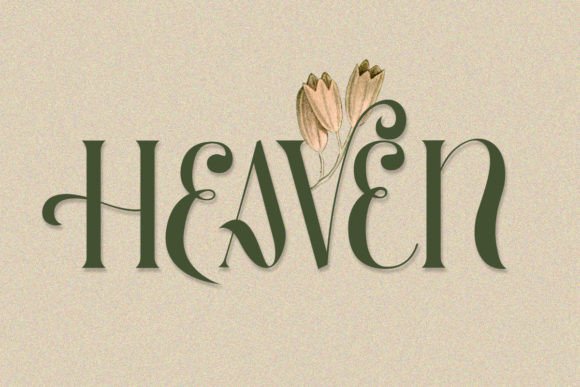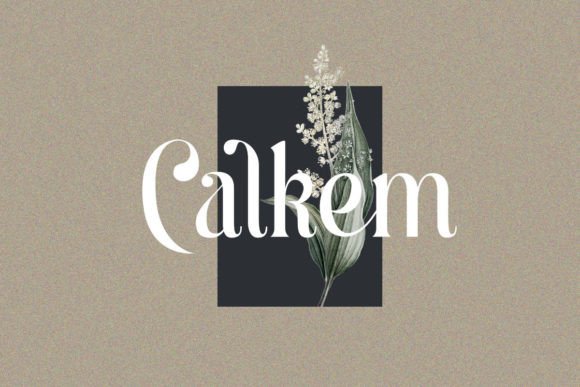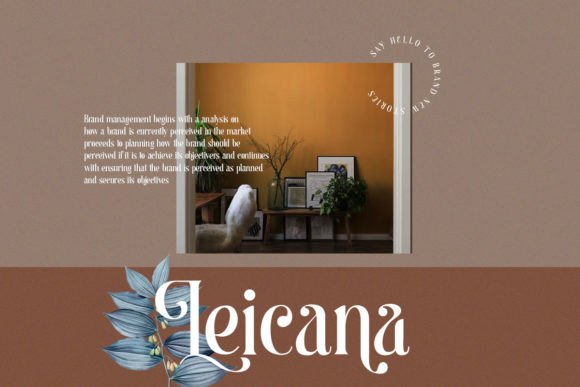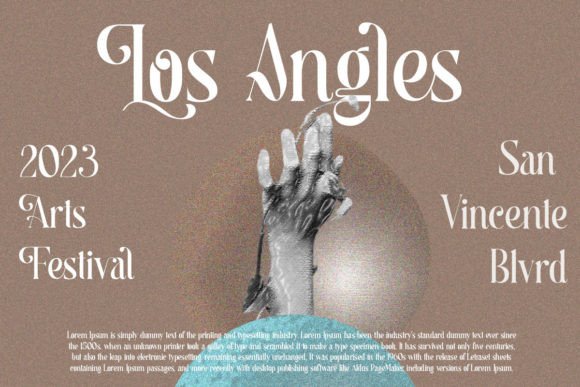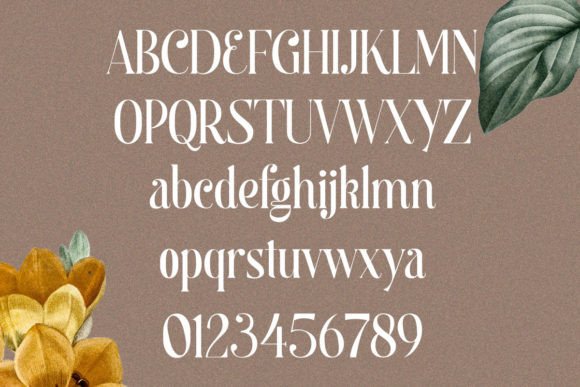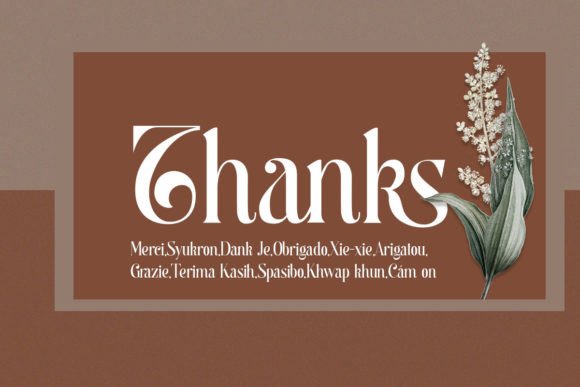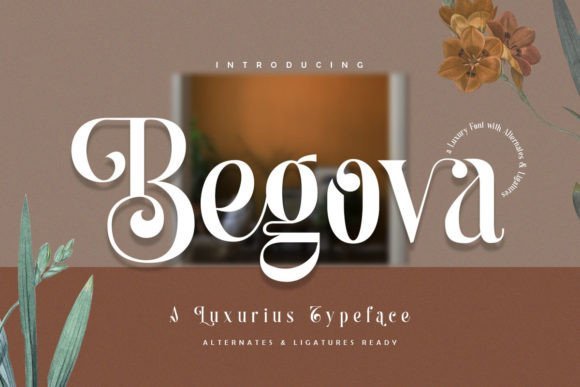
The Perfect Font for Making a Lasting Impression
Have you ever stared at a blank page, struggling to find the perfect font to bring your design to life? We’ve all been there. But what if you could find a font that not only makes a statement but also adds a touch of elegance and sophistication to your work?
| 👤 Author | Lettercorner Studio |
Meet Begova Font, a classic and stylish display serif designed specifically for headings, logos, branding, magazines, product packaging, and invitations. With its rich stylistic alternates and clean lines, Begova Font is the perfect choice for designers looking to add a touch of class to their projects. Whether you’re a seasoned pro or just starting out, Begova Font is a valuable asset to have in your design toolkit.
Begova Font Key Features
- Unique Characteristics: Begova Font features a unique blend of modern and traditional design elements, with a focus on legibility and readability.
Begova Font Review
I recently had the chance to work with Begova Font, and I wanted to share my honest thoughts on this unique typeface. ✨ One thing that stands out is its quirky, hand-drawn feel, which can add a lot of character to designs. The font’s bold, expressive lines and varied letterforms make it perfect for projects that need a bit of personality.
Another great aspect of Begova Font is its versatility. It works well in a range of contexts, from logos and branding materials to editorial and creative projects. ✨ The font’s wide range of weights and styles also make it easy to customize and adapt to different design needs.
While Begova Font has a lot to offer, there are a few limitations to be aware of. ⚠️ The font’s more elaborate letterforms can sometimes be difficult to read, especially at smaller font sizes. Additionally, the font’s quirky feel may not be suitable for all design projects, particularly those that require a more formal or professional tone.
Overall, I think Begova Font is a great choice for designers looking to add a bit of personality to their projects. While it may not be the best fit for every design need, it’s definitely worth considering for projects that require a unique, hand-drawn feel.
- Quirky, hand-drawn feel
- Expressive lines and varied letterforms
- Wide range of weights and styles
- Perfect for logos, branding materials, and creative projects
- May be difficult to read at smaller font sizes
- Not suitable for formal or professional designs
Getting the Most Out of Begova Font
For best results, use Begova Font in combination with other elegant and minimalist design elements. Experiment with different font sizes and colors to achieve a cohesive look.
Begova Font is suitable for:
- Business cards and letterheads.
- Brochures and flyers.